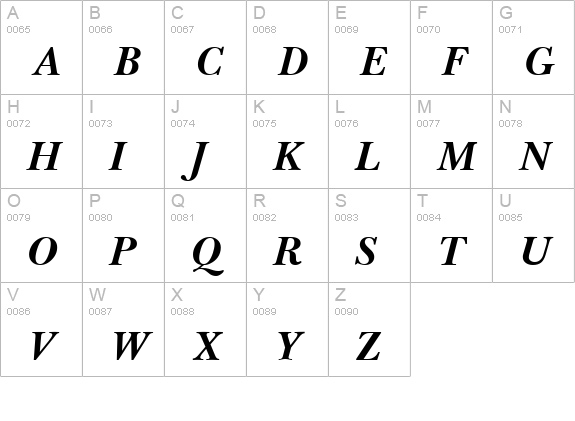
New Bold Italic is a strong, high-contrast, italic variant in the New typeface family \xE2\x80\x94 well suited to headlines, attention-grabbing titles, and strong calls-to-action.
Introducing the New Bold Italic font, a modern and stylish typeface that adds a touch of sophistication to any design project. With its bold yet elegant appearance, this font is perfect for creating eye-catching headlines, logos, posters, and more. The New Bold Italic font features a unique blend of boldness and italic styling, making it a versatile choice for both print and digital applications. Best of all, this font is available for free download at FontsMarket.com, making it accessible to designers of all levels. Whether you're working on a personal project or a professional client job, the New Bold Italic font is sure to make a statement and elevate your designs to the next level. Download this stunning font today and unleash your creativity!